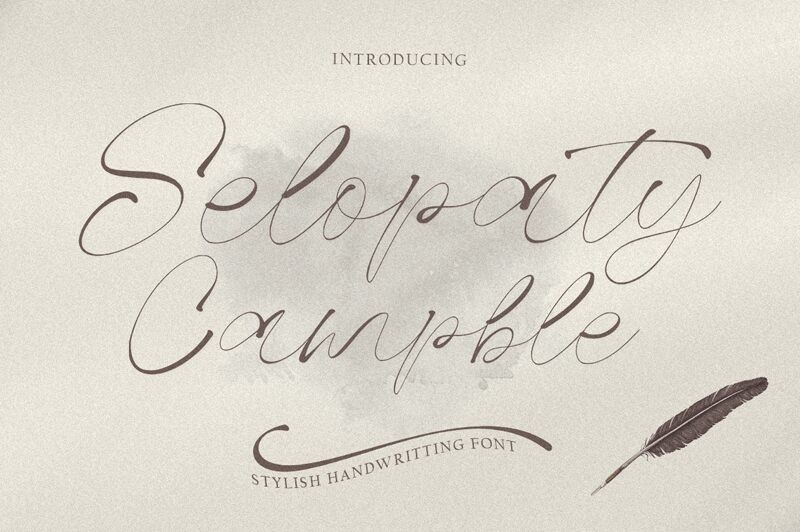
Selopaty Campble, a captivating calligraphic font crafted by Rastype, exudes an air of elegance and refinement. Its light, flowing strokes create a sense of graceful movement, inviting the viewer to immerse themselves in the artistry of the script. The harmonious balance between the delicate, organic curves and the subtle variations in line thickness lend the font a distinct personality, evoking a sense of timeless sophistication. Selopaty Campble's versatility makes it a compelling choice for a wide range of design applications, from high-end editorial work to luxury brand identities, where its unique aesthetic can add a touch of understated elegance and refinement.
Selopaty Campble's calligraphic charm shines through in its ability to elevate the visual appeal of various design projects. Its versatility allows it to seamlessly integrate into diverse contexts, from refined editorial layouts to captivating packaging designs and impactful branding initiatives. The font's light, airy quality lends itself particularly well to projects that seek to convey a sense of sophistication, exclusivity, or a connection to tradition, making it a valuable asset for designers seeking to create visually striking and memorable work.